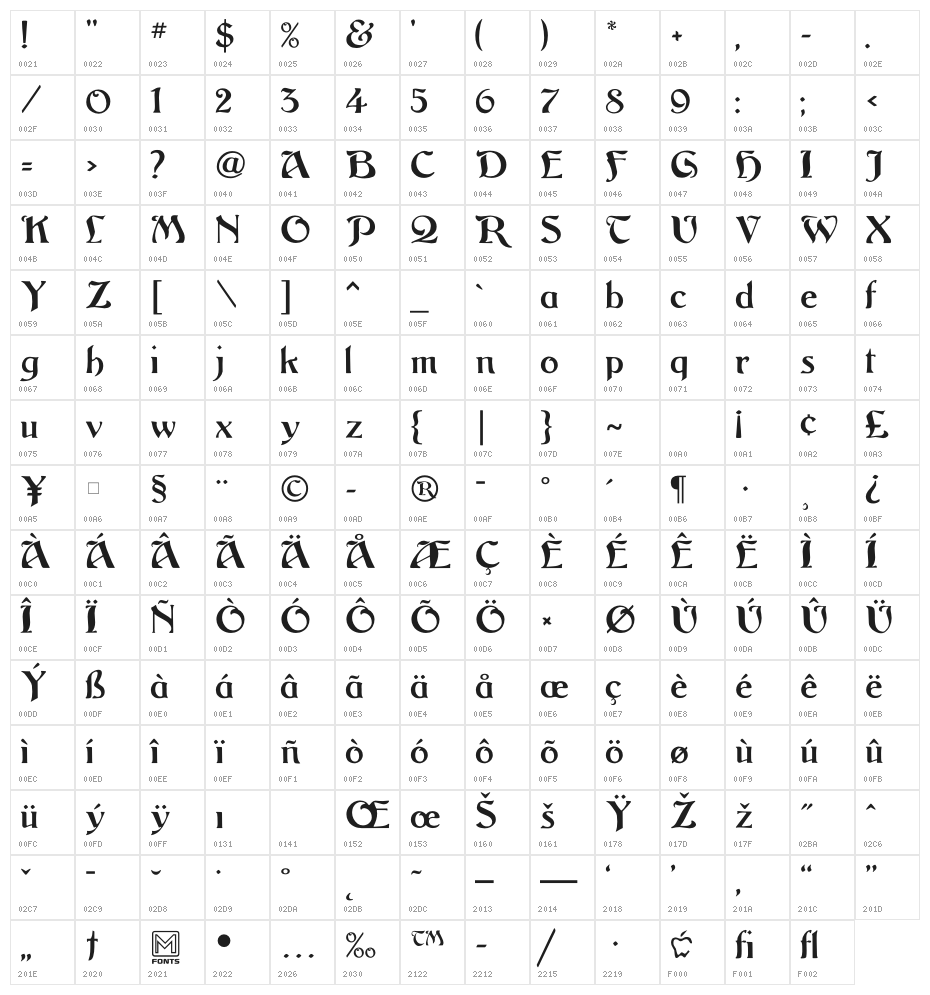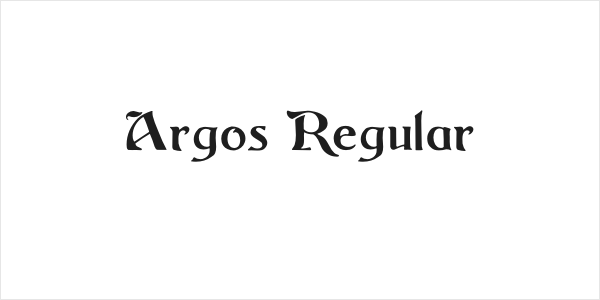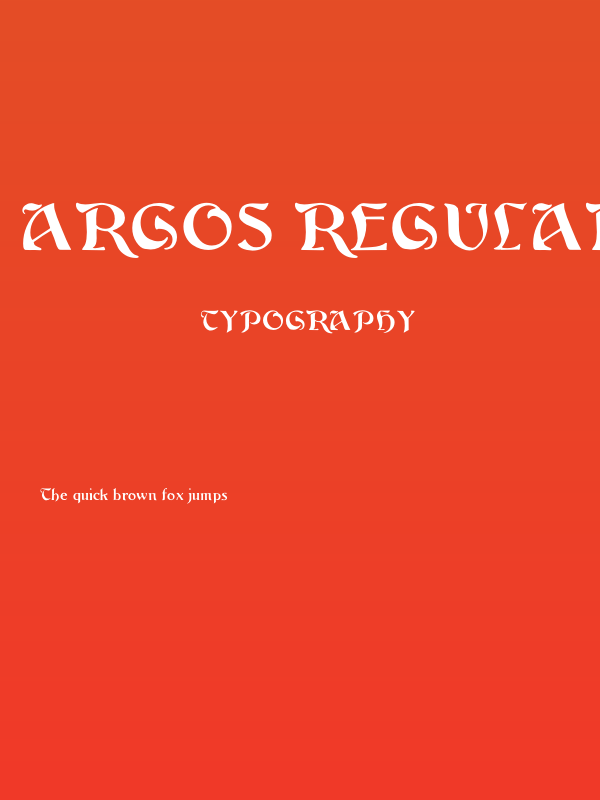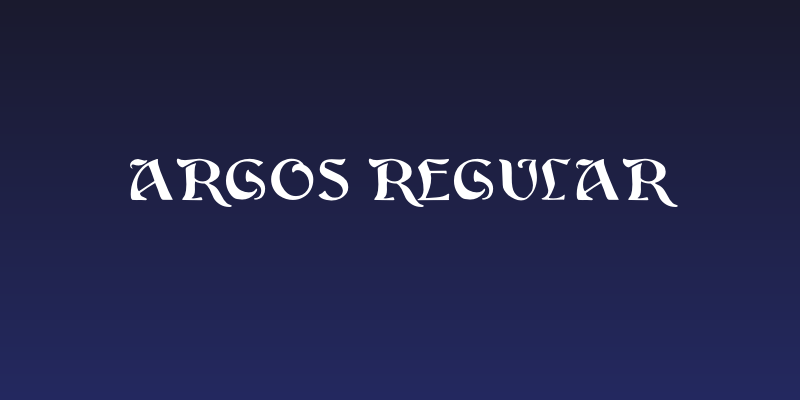
Argos Regular Font
Argos Regular Description
This font features a bold and dramatic style with a strong presence. The characters exhibit a unique blend of sharp edges and smooth curves, creating a dynamic and eye-catching appearance. The uppercase letters are particularly striking, with a medieval or gothic influence that adds a sense of grandeur and tradition. The lowercase letters maintain this stylistic approach, ensuring consistency throughout the typeface. Numbers and special characters are designed with the same attention to detail, making them suitable for a variety of applications. The overall design is both decorative and functional, offering versatility for creative projects.
| Proposed Projects | Ideal for branding, posters, book covers, and any project requiring a dramatic and historical touch. |